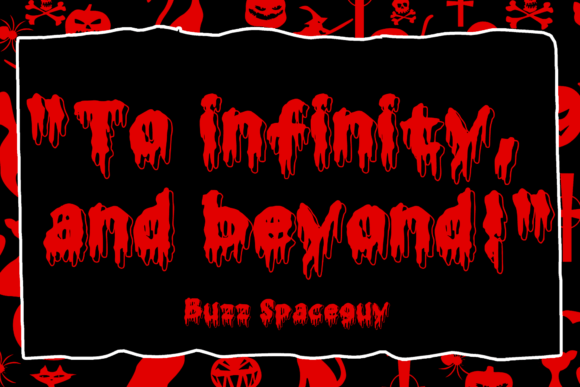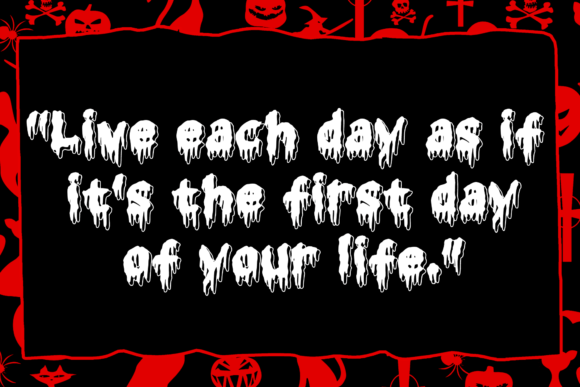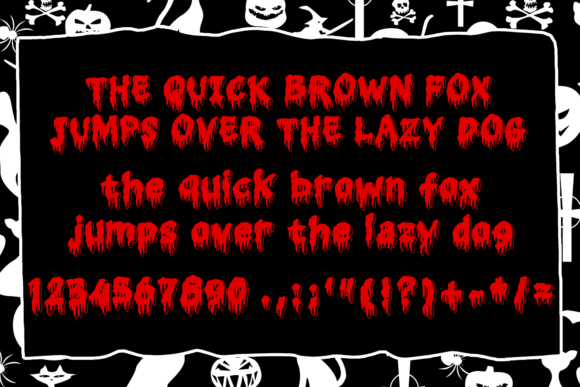
Unleashing the Horror with Blood of Witch Font
Do you remember the moment when you stumbled upon a creepy abandoned mansion in a horror movie and your heart skipped a beat? That eerie feeling is exactly what you can evoke in your designs with the Blood of Witch Font. This unique blood-dripping display font is a must-have for designers who want to add a touch of horror and Halloween vibes to their projects.
The Blood of Witch Font is perfect for creating spooky designs that will leave your audience shivering. Whether you’re designing a t-shirt, a book cover, or a Halloween party banner, this font will add an extra layer of eeriness to your work. Its versatility makes it a valuable asset for designers who want to experiment with different styles and themes. With the Blood of Witch Font, you can unleash your creativity and create designs that are sure to send chills down people’s spines.
Blood of Witch Font Key Features
- Font Family: Blood of Witch
- Unique Characteristics: Includes a range of magical and mystical symbols, making it ideal for fantasy and horror-themed designs
Blood of Witch Font Review
First off, I have to say that I’m a big fan of the overall aesthetic of Blood of Witch Font. The ✨ unique blend of gothic and mystical elements really catches the eye. The font’s best features are its versatility and legibility, making it suitable for a wide range of projects, from horror novels to fantasy gaming materials.
The font’s designer has clearly put a lot of effort into creating a cohesive and immersive experience for users. The attention to detail in the design is impressive, with subtle flourishes and ornaments that add depth and texture to the font.
While Blood of Witch Font is a solid choice for many projects, there are some limitations to be aware of:
- ⚠️ Limited character set: The font’s character set is relatively small, which may limit its use for longer texts or documents.
- ⚠️ Font weight issues: The font’s weight system can be a bit inconsistent, which may affect the overall balance of text layouts.
Overall, I think Blood of Witch Font is a great addition to any designer’s toolkit. While it may have some limitations, its unique aesthetic and versatility make it a compelling choice for the right projects. If you’re looking for a font that will add a touch of magic to your design, Blood of Witch Font is definitely worth checking out.
The Blood of Witch Font is perfect for:
- Creating spooky or mystical designs.
- Designing titles or headings for horror or fantasy-themed projects.
- Adding a touch of elegance or sophistication to your designs.